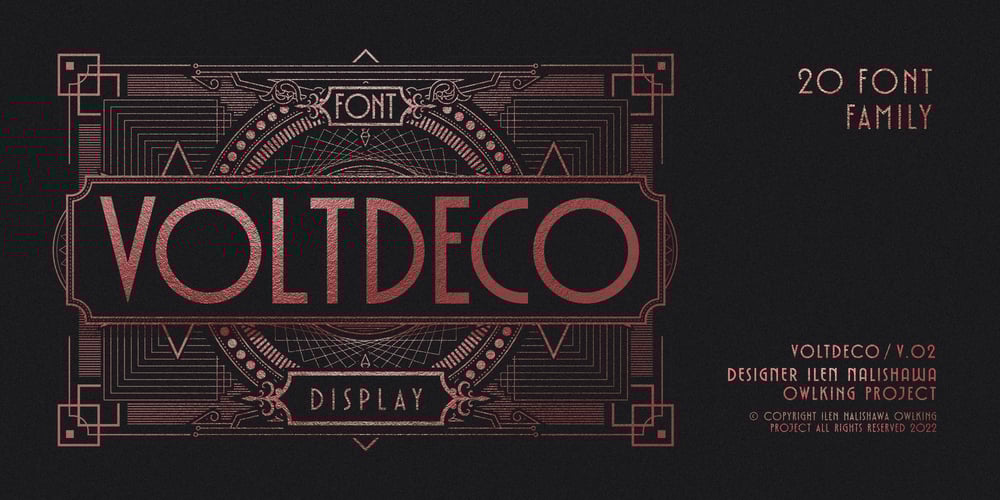
Voltdeco V02 Font Family was designed by Darhilen and published by Owl king project. Voltdeco V02 contains 20 styles and family package options. Finally, voltdeco V02 is basically capital letters (all-caps) for display, then to complement various needs for body text and headline layouts, it is developed into a font family.Voltdeco is an art deco uppercase font with a modern style,Voltdeco works great in short sentences or words, but the (20 weight) fonts allow for more options for exploration. Voltdeco can also work well for medium or regular text. Explore with voltdeco for creative works, whether printing the final design or digital design, happy exploring with voltdeco.